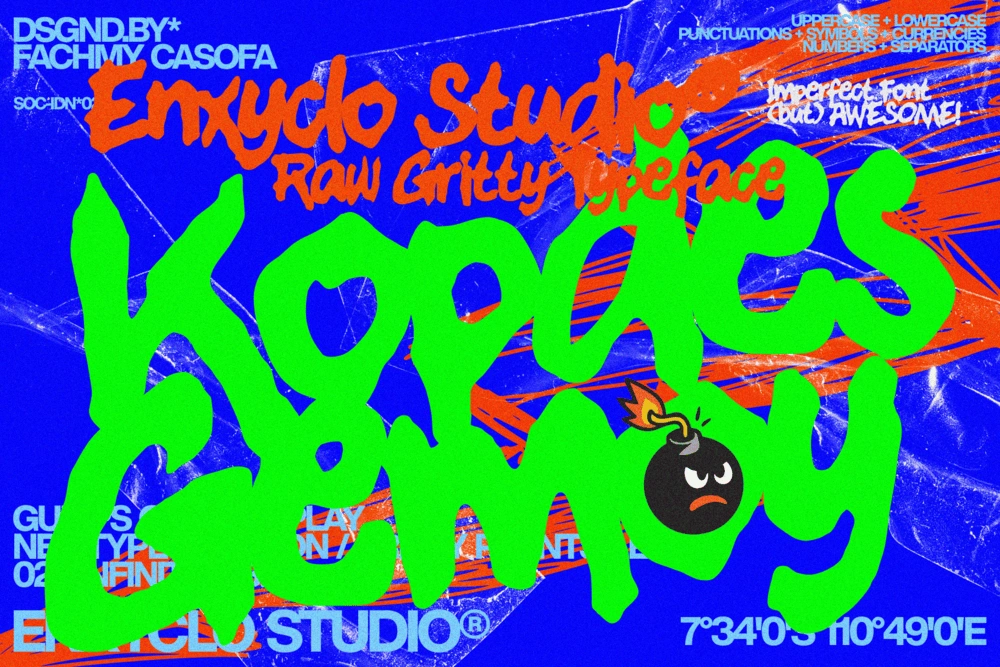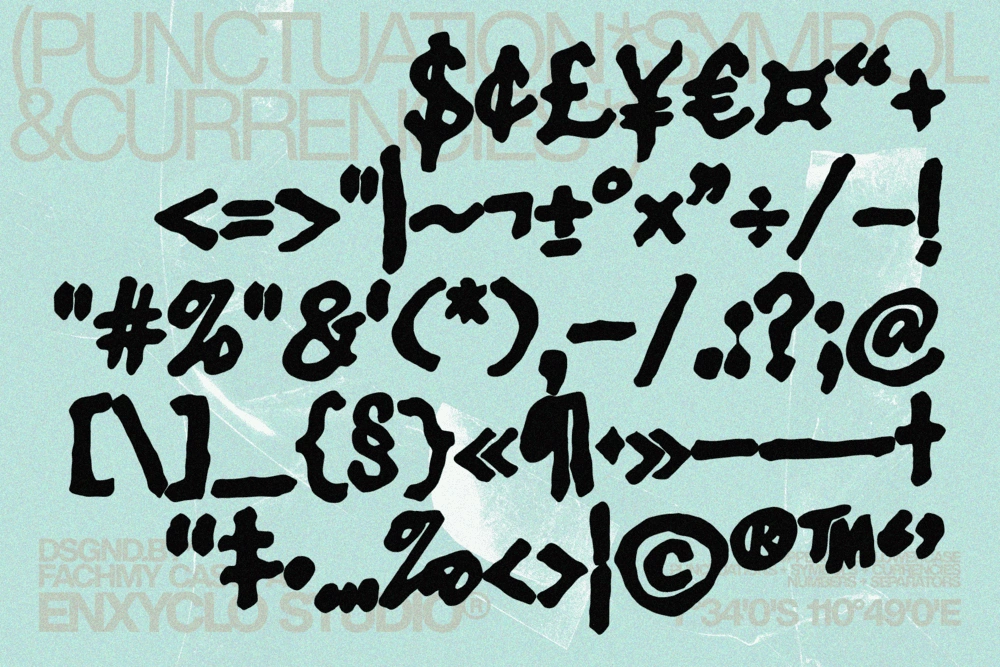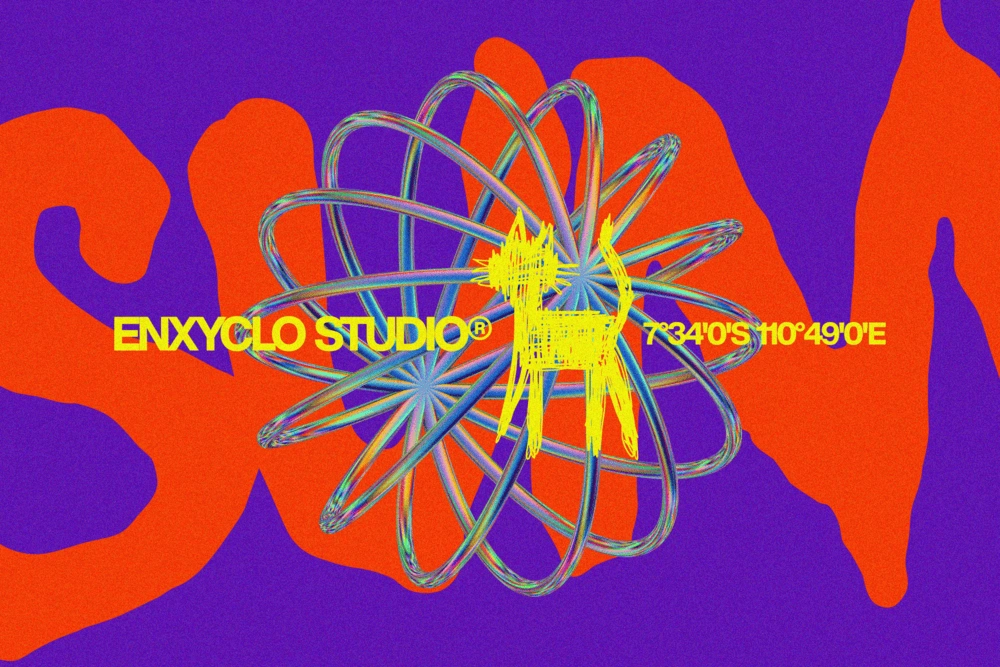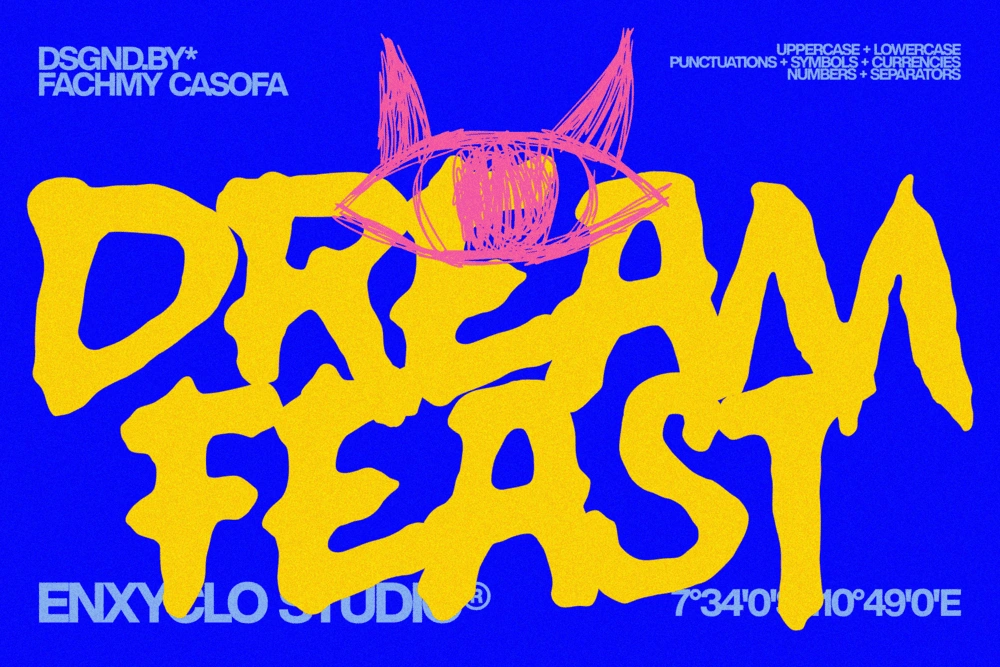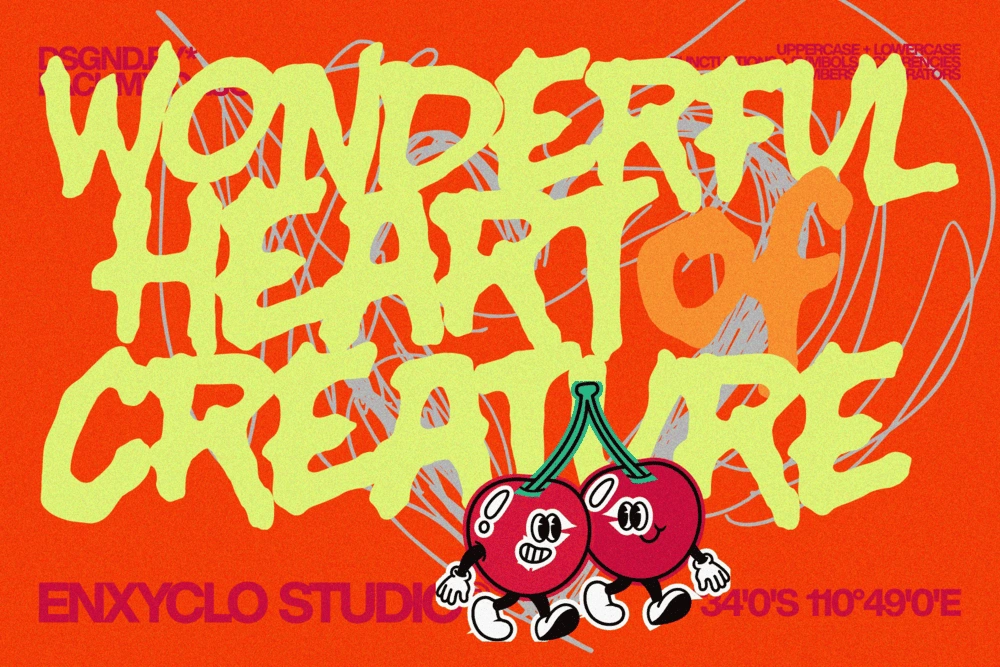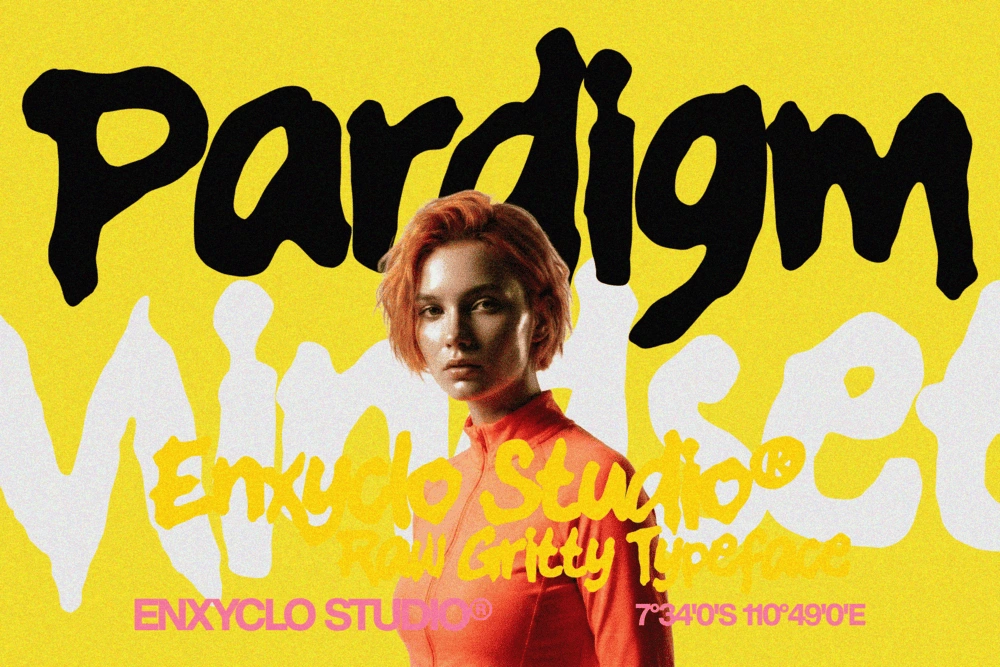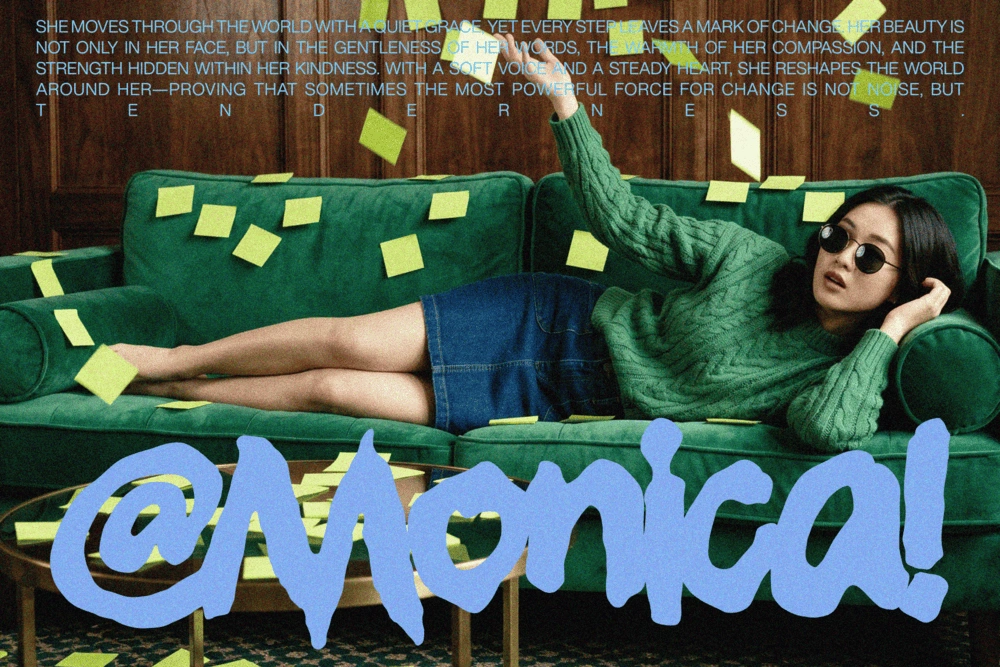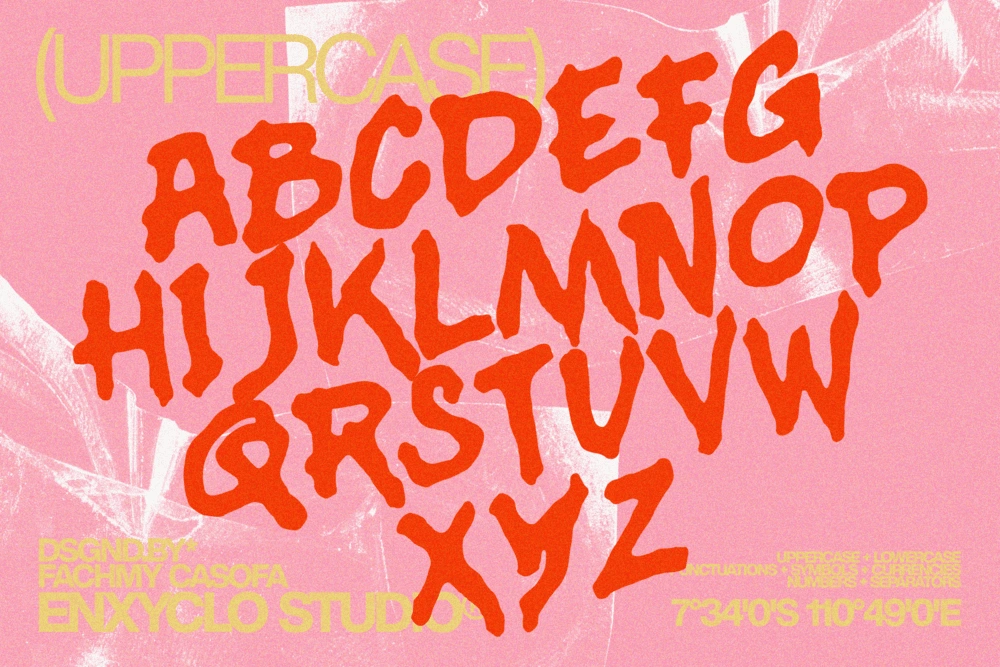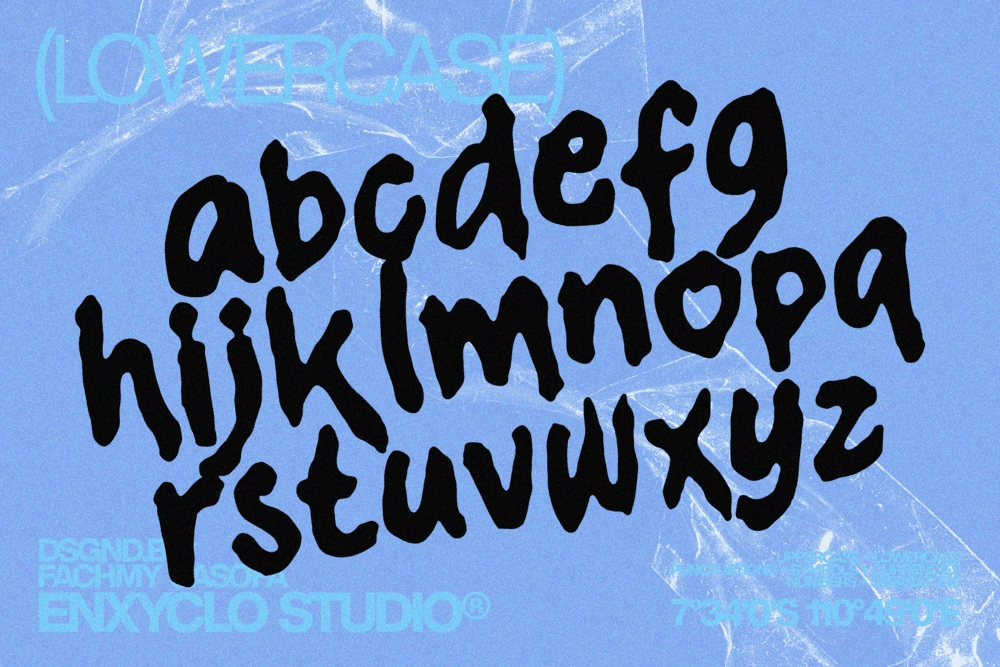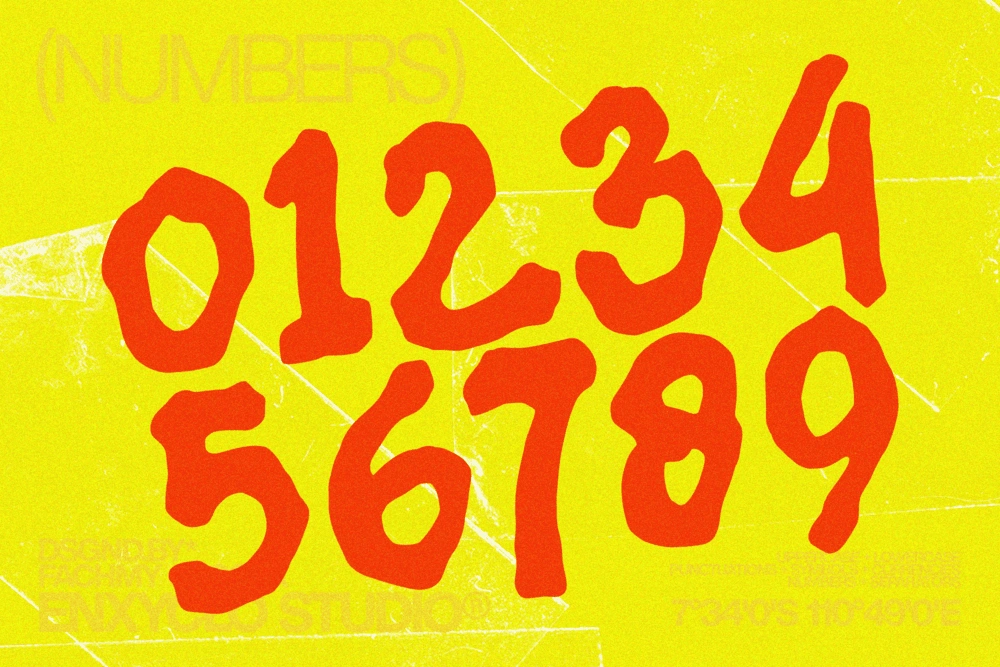
Kopdes Gemoy is an imperfect handdrawn branding font that celebrates the beauty of raw expression and authentic design. Built with gritty strokes and natural handdrawn imperfections, this typeface captures the energy of urban creativity and the bold character of industrial-inspired visuals. Every letter feels alive—raw, expressive, and intentionally imperfect—giving your design a powerful handcrafted personality.
Inspired by street lettering, creative studios, and modern urban aesthetics, Kopdes Gemoy blends rough textures with a confident contemporary structure. The result is a font that feels organic yet strong, capable of delivering striking headline and poster typography while maintaining a unique visual identity for modern branding projects. The gritty handdrawn style creates an expressive rhythm across each letterform, making Kopdes Gemoy perfect for designs that need attitude and authenticity. Whether placed on posters, bold headlines, or creative branding visuals, the font instantly adds a raw artistic voice that feels modern, urban, and full of character.
If your project demands typography that feels human, expressive, and visually bold, Kopdes Gemoy delivers a distinctive handcrafted look that stands out in today’s design landscape. From branding concepts to striking visual campaigns, this font helps transform simple text into an unforgettable visual statement.
FEATURE
• Uppercase letters
• Lowercase letters
• Punctuation marks
• Symbol set
• Currency symbols
PERFECT FOR
• Creative logo & logotype design
• Branding & brand identity
• Modern agency visuals
• Contemporary packaging
• Poster & headline design
• Creative campaigns & visual storytelling